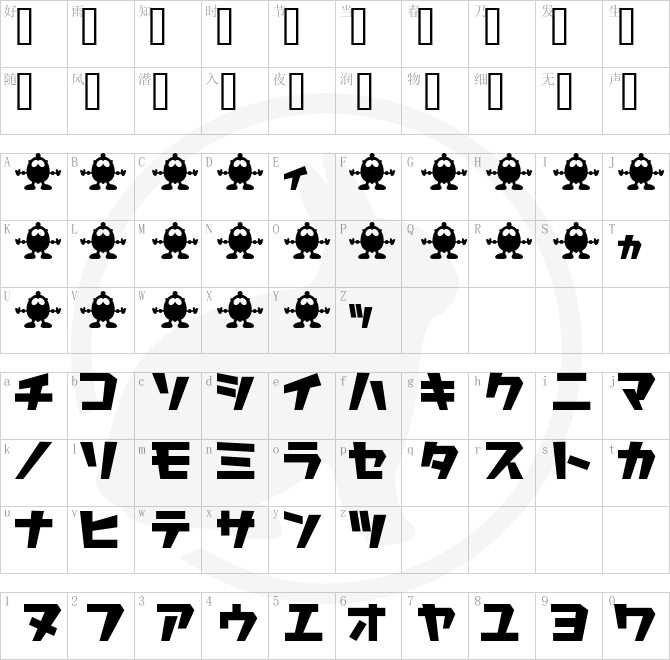
- Font Name:I2Robodach
I2Roboda-ch.ttf is a very beautiful artistic font, I2Roboda-ch.ttf is widely used in the design and printing of various books and pictures,I2Roboda-ch.ttf has a strong visual impact,I2Roboda-ch.ttf is a commonly used font in newspapers, magazines and books, and is used in posters, e-commerce Poster design, store design, logo design, font design and other fields.I2Roboda-ch.